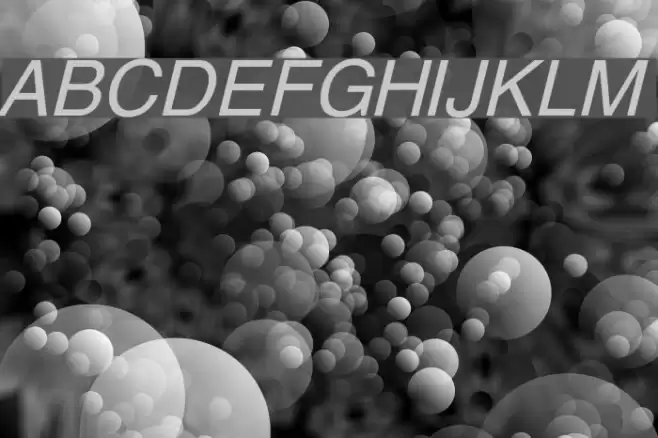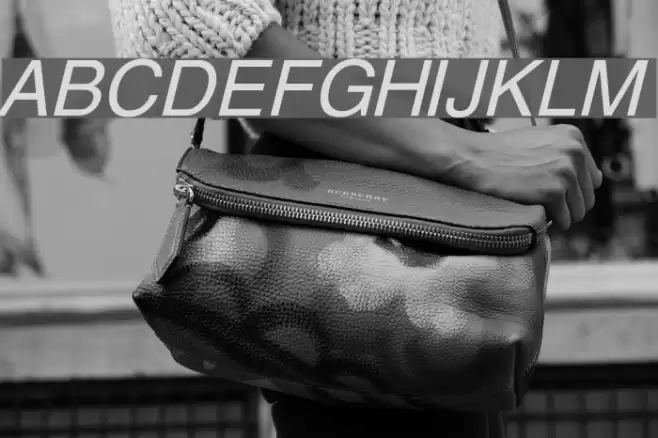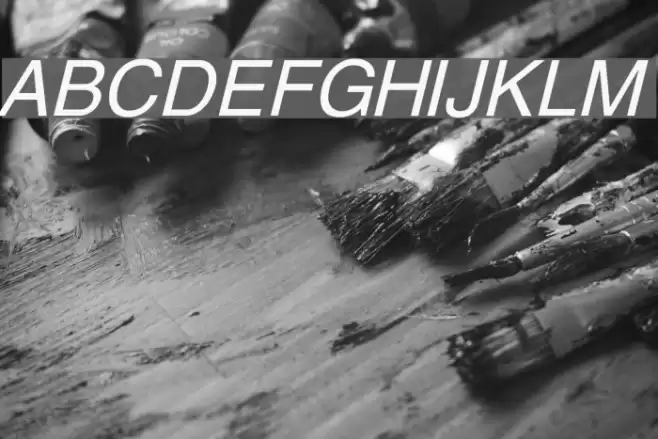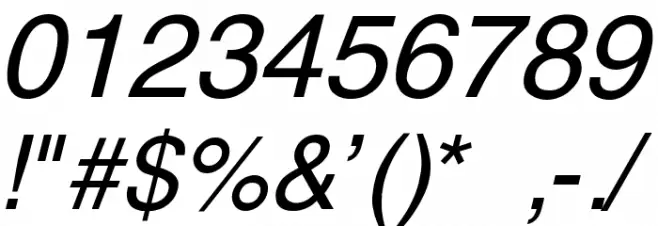
Yoxall Italic Font
Yoxall Italic Description
This font features a sleek, italicized style with smooth curves and a modern aesthetic. The letters are slightly slanted, giving a sense of motion and elegance. The uppercase and lowercase characters are well-proportioned, maintaining readability while adding a touch of sophistication. The numerals are clear and consistent in style, matching the overall design. Special characters are included, providing versatility for various uses. The font's clean lines and contemporary look make it suitable for a wide range of applications.
A modern, italicized font with smooth curves and a sleek design from Uncategorized fonts.
- Proposed Projects: Ideal for branding, advertising, and editorial design projects that require a modern and elegant touch.
- Use Case: Headlines, Body text, Logos